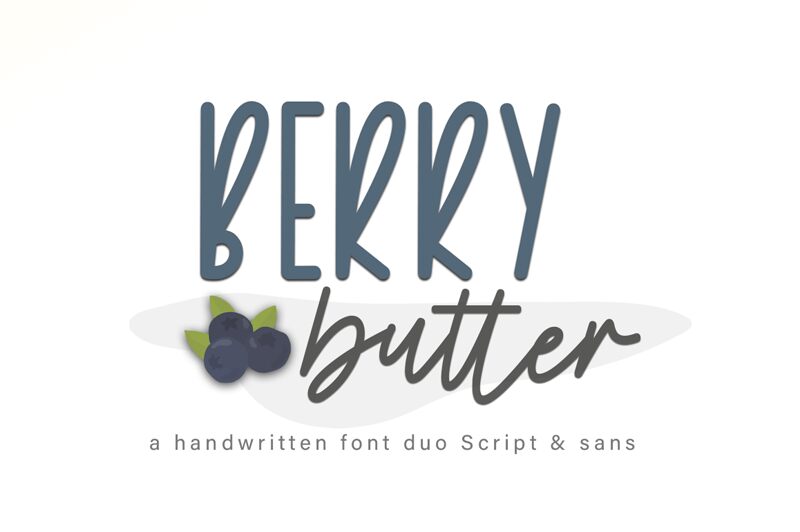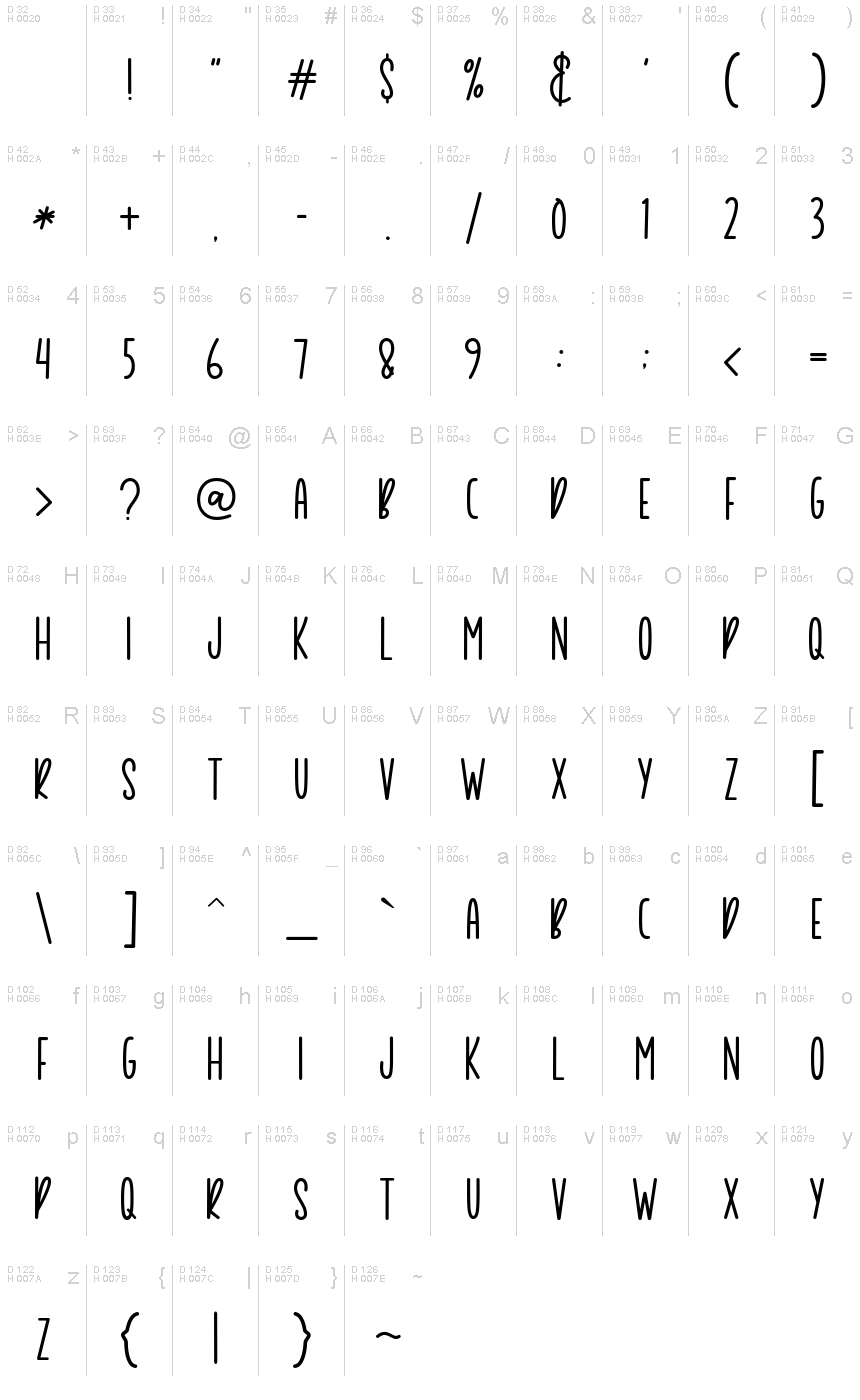
Berry Butter Sans
Berry Butter Sans font was created by AM Designs. Berry Butter Sans has a casual handwritten style, with tall proportions and smooth curves. The friendly character design gives this typeface a whimsical feel, making it perfect for any creative project that you have in mind.
Each letter has playful rounded edges and moderate contrast, bringing the unique character set to life on the paper or screen. It's an ideal choice for book covers, magazine spreads, posters, DIY projects; in fact anything which will benefit from great a contemporary handwritten look!